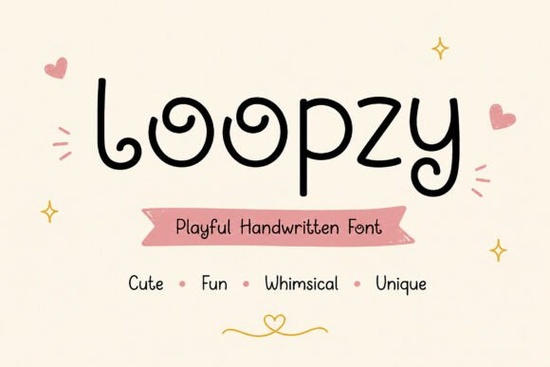
If you're looking for a friendly, hand-drawn script font that feels personal and approachable not stiff or overly polished then Loopzy Font is worth your attention. It’s not trying to be everything at once. Instead, it leans into its strengths: soft loops, gentle curves, and an unmistakably warm, handwritten rhythm. That makes it especially useful if you’re designing for audiences who respond to sincerity and playfulness like kids’ products, heartfelt greeting cards, or small-batch merchandise.
What kind of projects does Loopzy work well with?
Because Loopzy has such a relaxed, organic flow, it shines in contexts where personality matters more than precision. Think of it as the font you’d choose when you want your design to say “I made this just for you” rather than “this was generated.” It pairs naturally with:
- Kids’ apparel and nursery decor (think onesies, wall prints, or baby shower invites)
- Stickers and planner inserts especially those with a sweet, low-key aesthetic
- Cricut and Silhouette cutting files, thanks to its clean, open letterforms and consistent spacing
- Social media graphics for small businesses focused on wellness, parenting, or handmade goods
- Mugs, tote bags, and tea towels where charm and readability both matter
It’s also a solid choice if you’re building a cohesive brand identity for a boutique shop or Etsy store particularly one centered around gentle, joyful themes. Unlike some script fonts that demand tight kerning or special layout tricks, Loopzy is straightforward to use right out of the box. You won’t need advanced typography knowledge to get good results.
How does Loopzy compare to other playful script fonts?
Not all whimsical fonts age well or scale cleanly. Some lose legibility at smaller sizes, while others feel too busy or overly decorative. Loopzy avoids those pitfalls by keeping strokes smooth and spacing generous. Its lowercase “g,” “y,” and “j” have subtle, friendly loops not exaggerated flourishes and its capitals are understated, never shouting.
If you’ve tried Scarlett Font, you’ll notice Loopzy feels lighter and airier. Where Scarlett leans into romantic elegance, Loopzy prioritizes ease and warmth. For contrast, Mafuinka Font has bolder contrast and tighter connections great for headlines, but Loopzy often reads better in longer phrases or body text. And if you like the looping energy of Loopzy, you might also enjoy Curlicue Font, which shares that sense of motion but adds slightly more bounce.
Another option worth checking is Room for Tiramisu Font. It’s similarly soft and inviting, though with a more delicate baseline and narrower proportions making it ideal for tight spaces like tags or labels. Loopzy gives you a bit more breathing room, which helps with print-on-demand mockups and fabric printing.
Where can you see Loopzy in action?
One of the best ways to test how Loopzy fits your needs is to try it alongside real content. Try typing out a short quote, a product name, or even your shop’s tagline. See how it holds up next to a simple sans-serif (like Montserrat or Poppins) for balance. Many designers pair Loopzy with clean, neutral typefaces to keep things grounded so the whimsy enhances, rather than overwhelms.
Also worth noting: because Loopzy is designed with crafting tools in mind, it works reliably in popular platforms like Cricut Design Space, Silhouette Studio, and Adobe Express even when converted to outlines or used with cut settings.
- ✅ You need a script font that’s easy to read at medium sizes (16–36 pt)
- ✅ Your project benefits from warmth not formality like kids’ branding or cozy lifestyle content
- ❌ You need ultra-thin hairlines, dramatic swashes, or multilingual character support beyond basic Latin
If most items check out, Loopzy is likely a practical, pleasant addition to your font library not a flash-in-the-pan trend, but a steady, reliable tool you’ll reach for again and again.